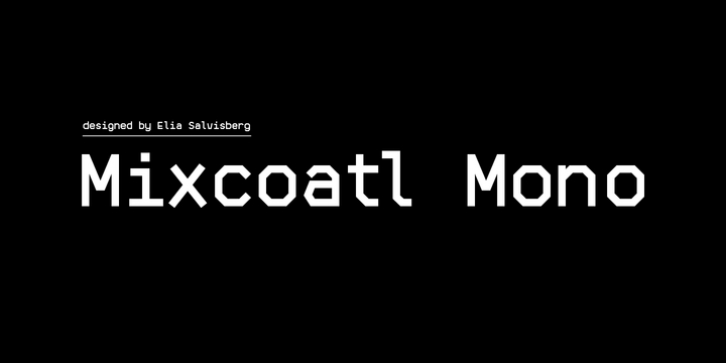
Mixcoatl Mono was designed by Elia Salvisberg and published by FontForum. Mixcoatl Mono contains 1 style.
The Typeface «Mixcoatl» by Elia Salvisberg was developed as a part of a course at the Lucerne School of Design and Art in 2016. Based on the book «The Empire of the Inca», a display-font has been created, which is inspired by the graphic language of the South American Empire of the Incas. At the beginning, only capital letters were designed but there was the desire for a complete typeface – which is why the missing signs were added. The font is based on a grid, so the characters are constructed equivalently and a uniform geometric font arose. The name was adopted from the god of hunting who plays an important role in the mythology of the Aztecs and appears in various forms. The uppercase letters can also be represented and combined in two alternative character-sets, so there are a lot of opportunities to combine uppercase words in different forms.